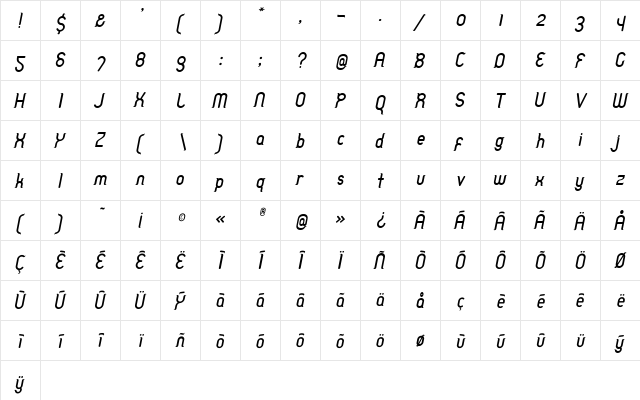
TableManners Italic
TableManners offers clean, dependable letterforms without strong stylistic allegiance, making it a practical choice for designers who need flexibility. Its italic angle brings a sense of urgency and motion to the letterforms.
Pro Tip: Use TableManners for emphasis, pull quotes, and subheadings where its slanted energy can add rhythm to the layout.